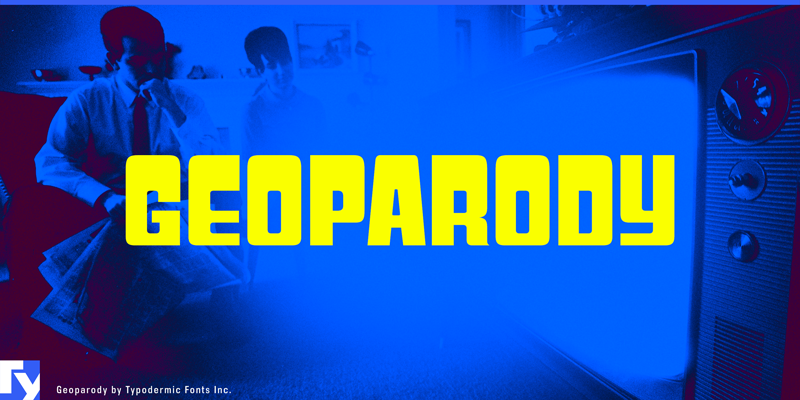
Preview and download Geoparody Font. Created by Typodermic Fonts in Fancy Groovy styles with 100% Free license.
Geoparody was inspired by a late 1960s font called Anonymous. An alternate X and Y are available as OpenType stylistic alternates. These fonts include a license that allows free commercial use: sometimes referred to as a desktop license. This allows you to install the fonts on a computer and use them to create posters, web graphics, game graphics, t-shirts, videos, signs, logos and more. Read the license agreement for details. If you'd like to embed these fonts in an app, on the web or anything that's not covered by the desktop license agreement, visit the link below. You'll find distributors who offer different types of licenses or you can contact me for help. https://typodermicfonts.com/geoparody/ |